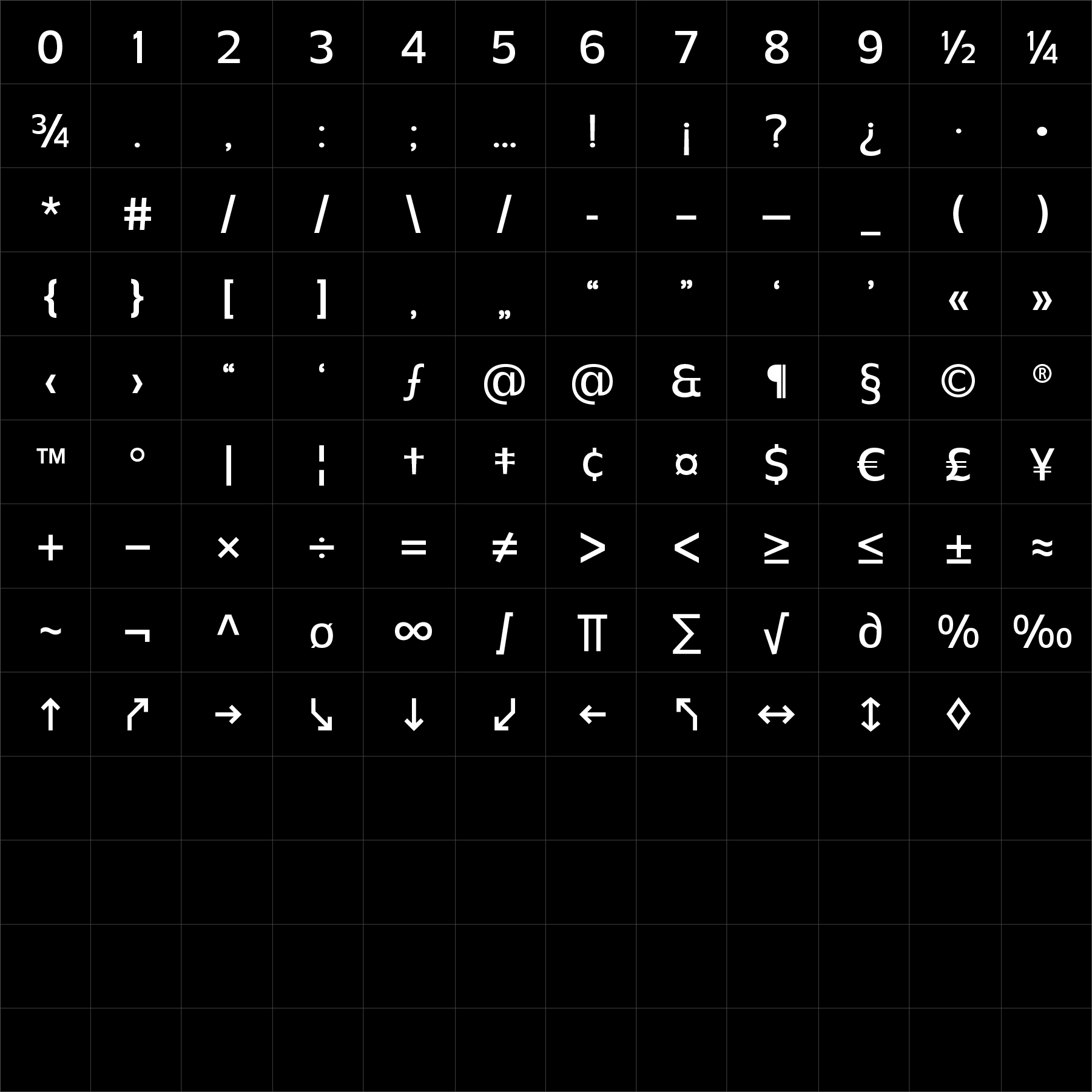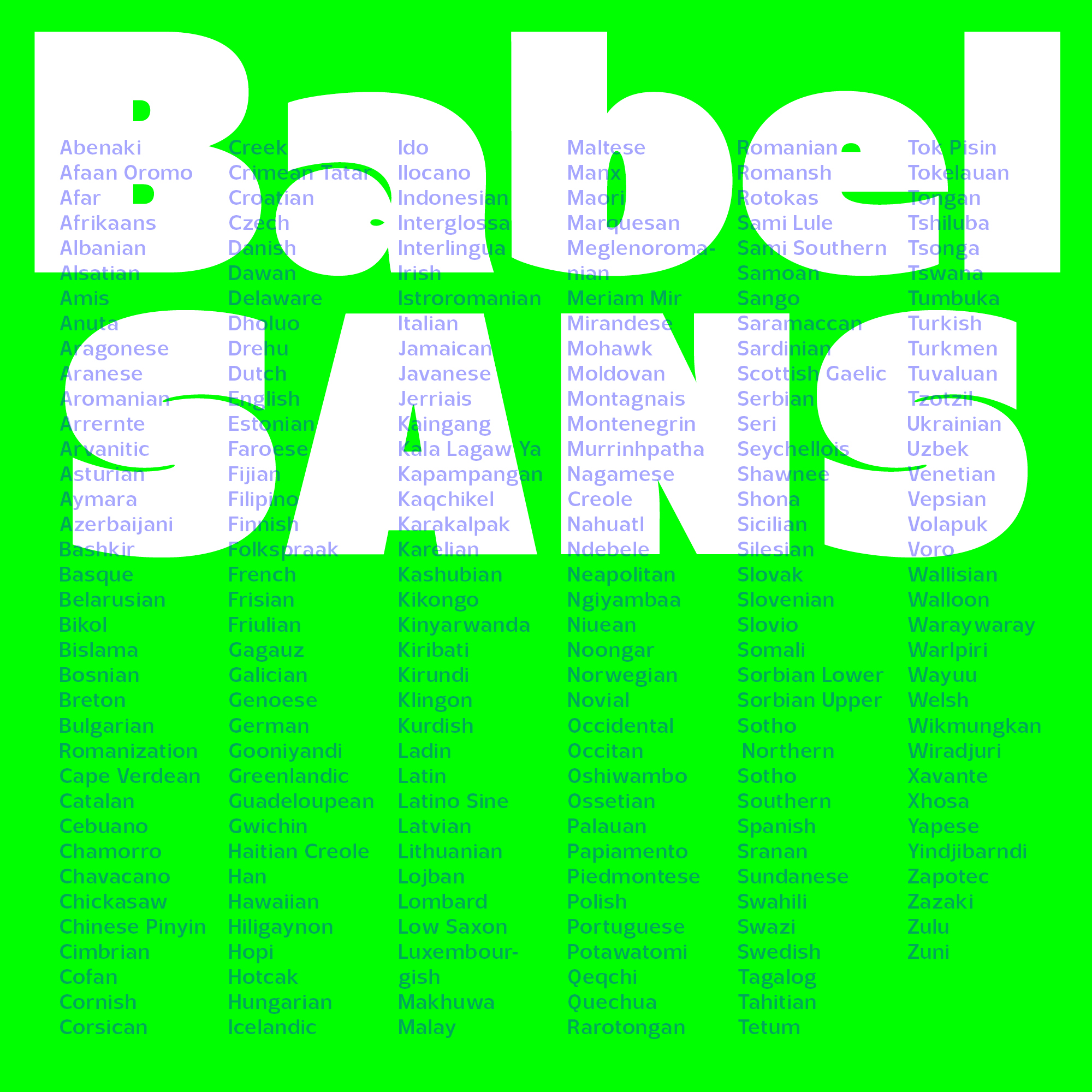
Babel Sans is a versatile grotesk built for communication in all its forms. Its direct construction, open rhythm and carefully controlled details give language a clear presence while retaining enough personality to remain recognisable.
Designed to work across changing tones and formats, Babel Sans can move from quiet information to emphatic display typography without losing coherence. It provides a flexible voice for identity systems, editorial design, campaigns and digital products.
Babel Sans gives organisations a consistent typographic language across different audiences, platforms and levels of information. Its range allows tone to change while the underlying identity remains stable.